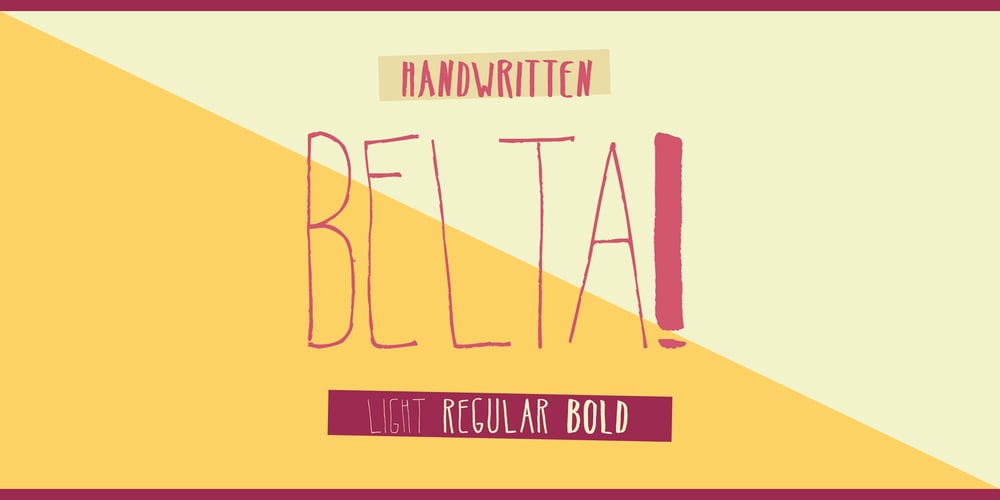
Belta Font Family was designed by Julia Martinez Diana and published by Antipixel. Belta contains 3 styles and family package options. Belta is a decorative all-caps handwritten font, perfect for display use. It is available in light, regular and bold, providing a wide range of possibilities and combinations since the glyphs vary from one style to another, allowing a more informal and script look. It’s glyph coverage supports languages such as English, Spanish, French, Portuguese, Italian, Swedish, among others.